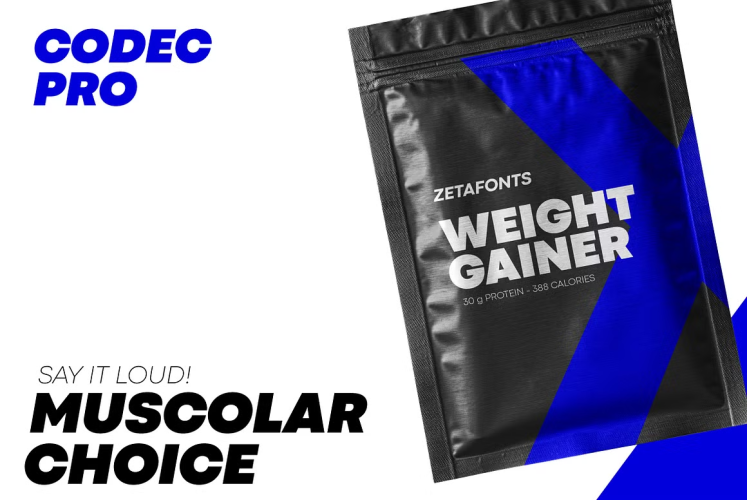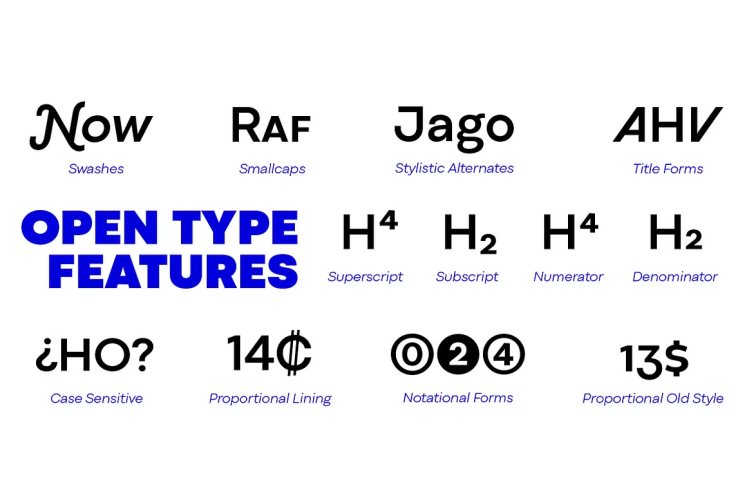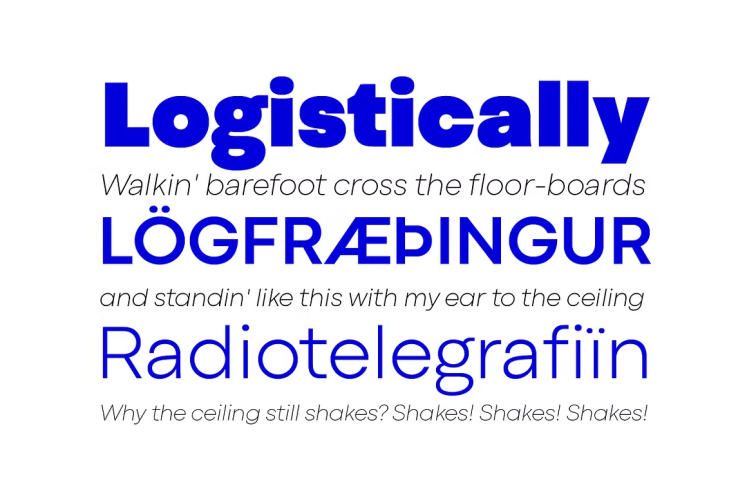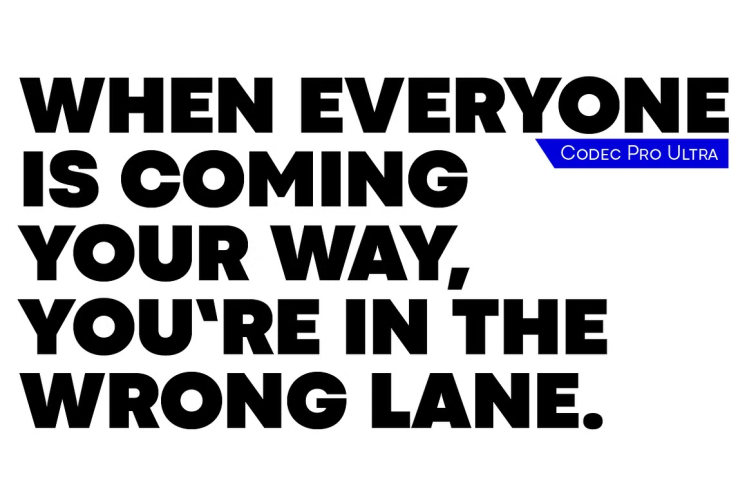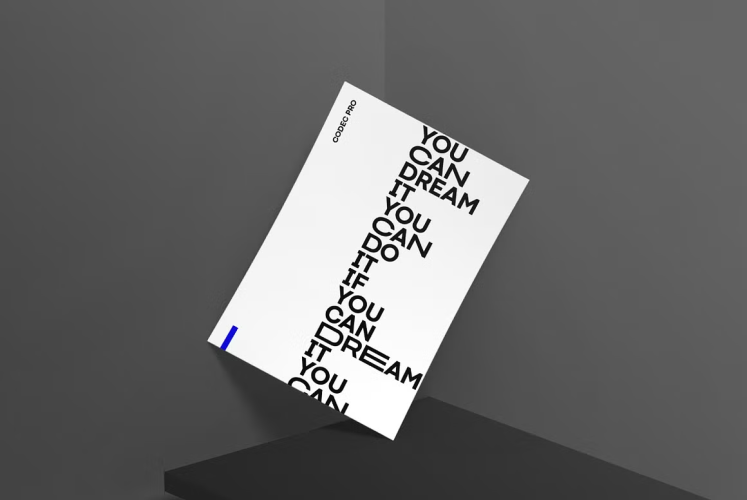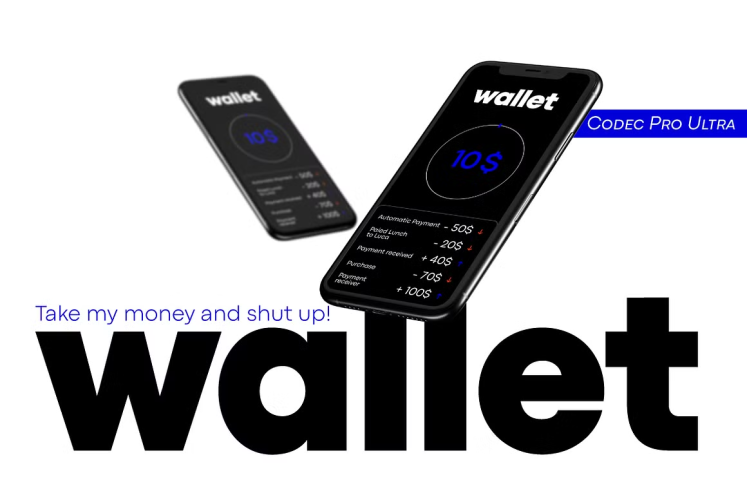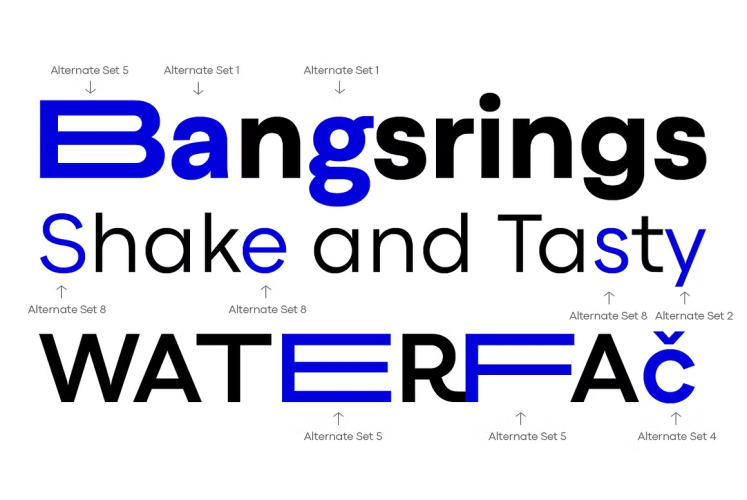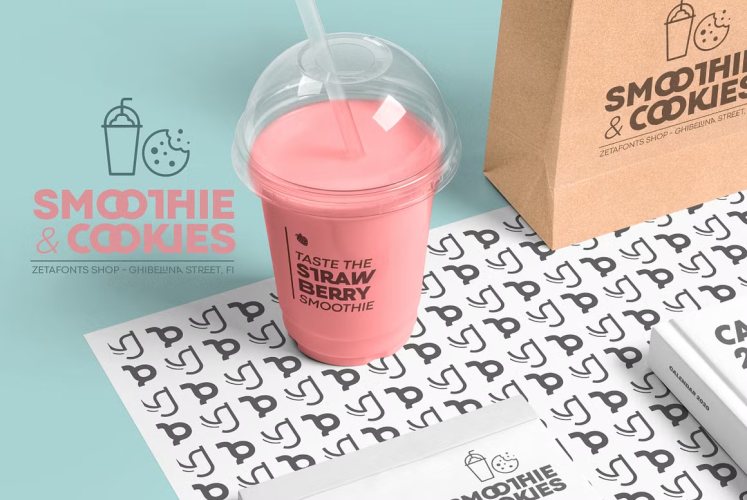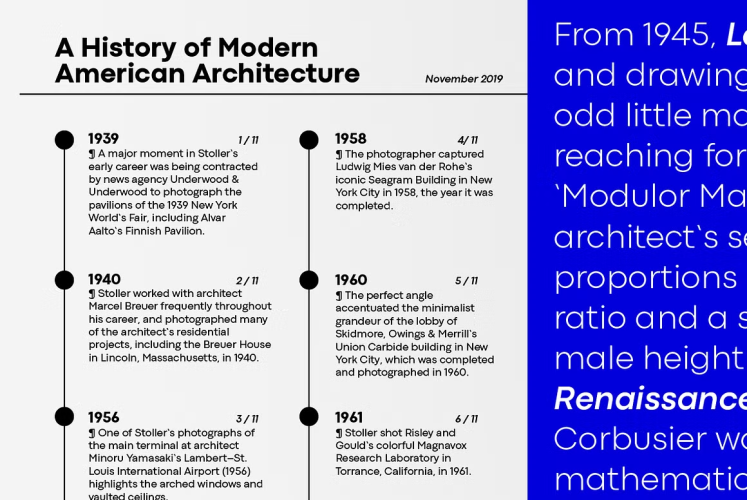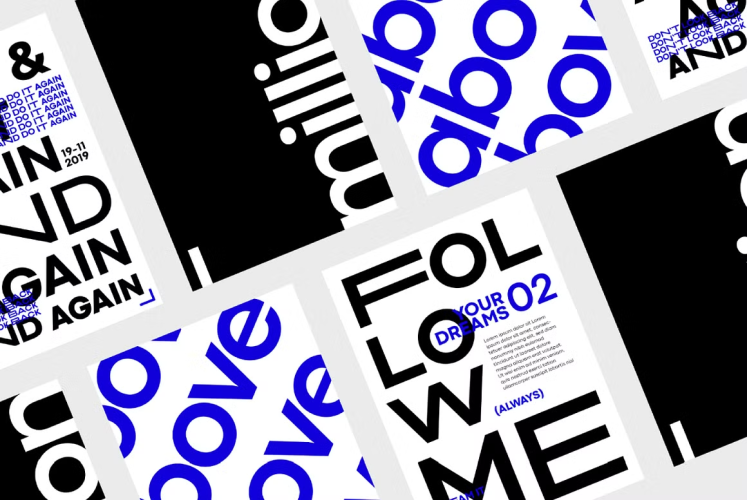
Codec Pro Font
Introducing Codec Pro, the latest version of the Codec-type font family, emerged in 2017 with Francesco Canovaro, Cosimo Lorenzo Pancini, and Andrea Tartarelli. This undertaking can be viewed as a comprehensive effort to capture and express the finesses and slight deviations from geometric sans-serif typography.
Based on its origins and entire design, it gave birth to a new typeface. Codec Pro has not only been redesigned but has also expanded. Currently carrying up to 11 weights, which thin out to the light to the vast body bold, this font can solve different design problems. Furthermore, the writing inherited is depleted so that it comprehends not only Latin, Cyrillic, and Greek scripts but also Arabic, Farsi, and Urdu for coverage, inclusion, and adaptability.
It brings to designers a set of unrivalled foundry-level setting options, including alternates, sets, and extensive style ranges fitting the original type system. Through the Codec family of typefaces, the warmest and the most basic one of the set Cold gives us carefully positioned and well-placed terms whose outline follows the baseline’s angle or direction, resulting in a geometric composition and structural images. Meanwhile, Codec Warm, a font with open diagonal cuts and humanist shapes, coddles the observer with its gentle style. In another way, it has a subtle style. The stylistic set 3, Codec Cold Logo, utilizes fancy ligatures for those who prefer to keep it playful. Stylistic set 5, on the other hand, Codec Warm Logo, keeps the characters inches longer than the characters are usually drawn, creating a dynamic and unexpected variation.
The Codec Pro typeface includes more than 400 glyphs, making it legible. These represent a range of stylistic options to enable users to fit their needs for any project. The trusted font also has several useful tools that simplify and improve the design process.
On the other hand, it’s designed with incredibly great detail. This is seen in the detailed geometry and the harmonious balance proportions in both the medium and text weights. This attention to detail is essential in visual legibility and optimum harmony for standard and highly specialized graphic needs.
Additionally, Codec Pro looks for further optimization for both digital and print platforms, meaning it will ultimately exhibit similar rendering across different platforms and devices. Whether used in web design, print media or branding collateral, designers can have the bells and whistles through Codec Pro that guarantee crisp and professional turnout.
Codec Pro can generally be characterized as a wide-ranging language support, thus ensuring easy integration into multilingual projects. From his omnipresent global campaigns to localised branding, the font gives the designer directions, enabling him to relate with an audience worldwide.
Where Codec Pro Font works best
Codec Pro Font stays legible at small sizes, which makes it a strong choice for navigation, buttons and dashboards in web design and app interfaces.
Clean sans serifs like Codec Pro Font are the default language of SaaS, fintech and product branding.